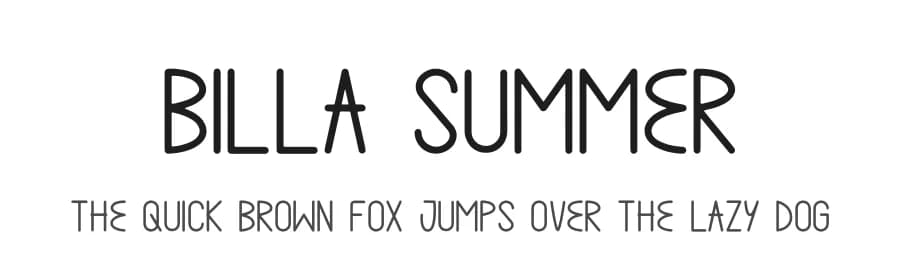
About Billa Summer Font
Billa Summer is a script & handwritten font designed by Tychitype. It includes 194 glyphs, a regular weight, OTF (CFF) format, and 213 languages. Billa Summer is free to download; check the license details on this page before commercial use. Script & handwritten fonts like Billa Summer work best for wedding invitations, greeting cards, signatures, and elegant branding.
Billa Summer Font is a script font that shines as a display or heading face. Pair it with a clean sans-serif or serif font for body text β the contrast creates a clear hierarchy while the two styles stay balanced and easy to read.
Billa Summer Font
by Tychitype
Billa Summer Font is a script handwritten typeface by Tychitype, ideal for logos, invitations, branding, and creative projects.